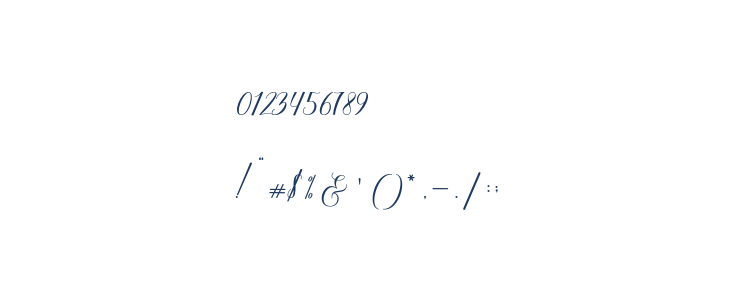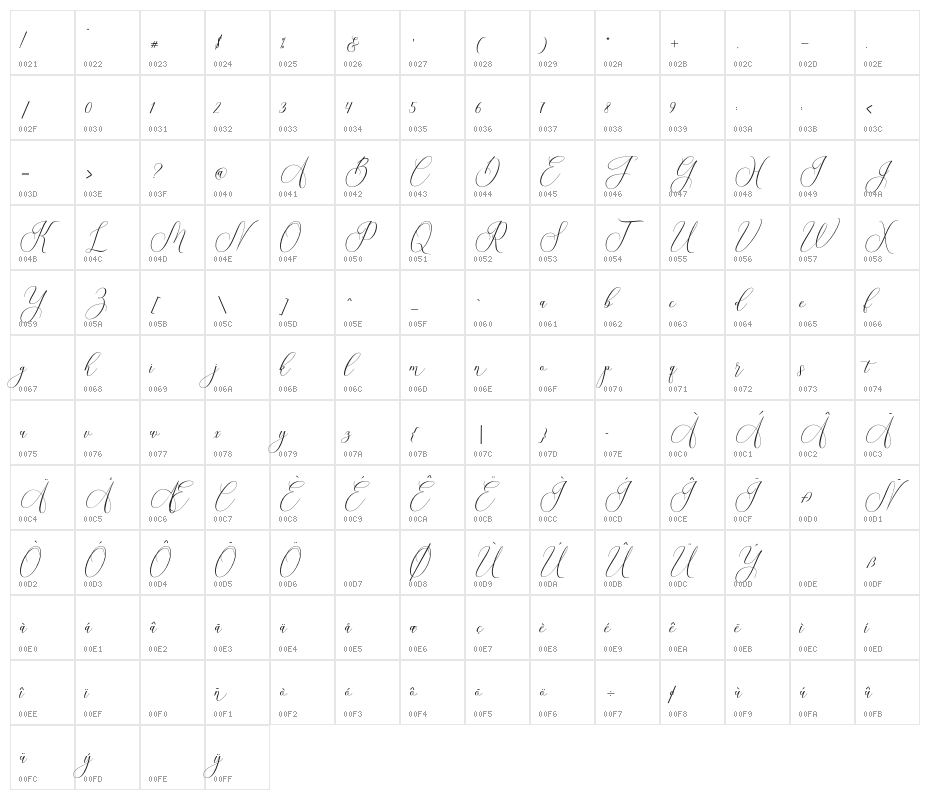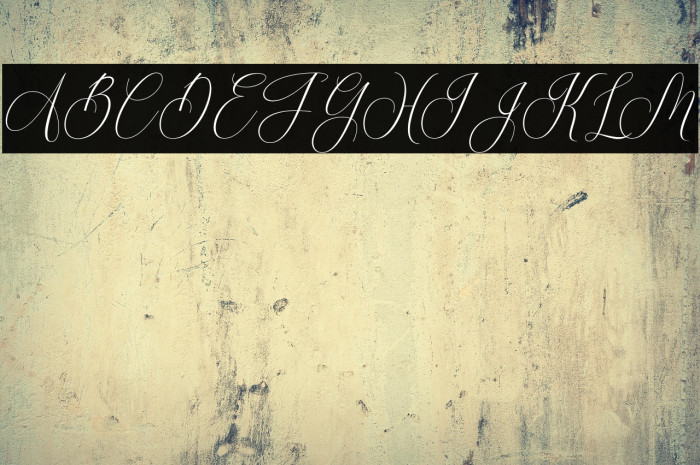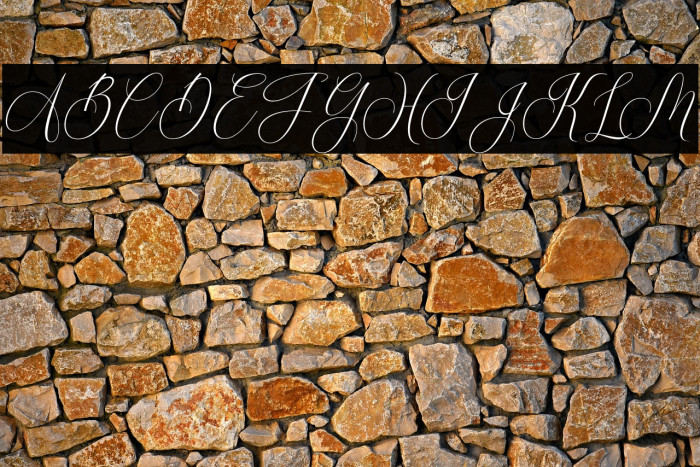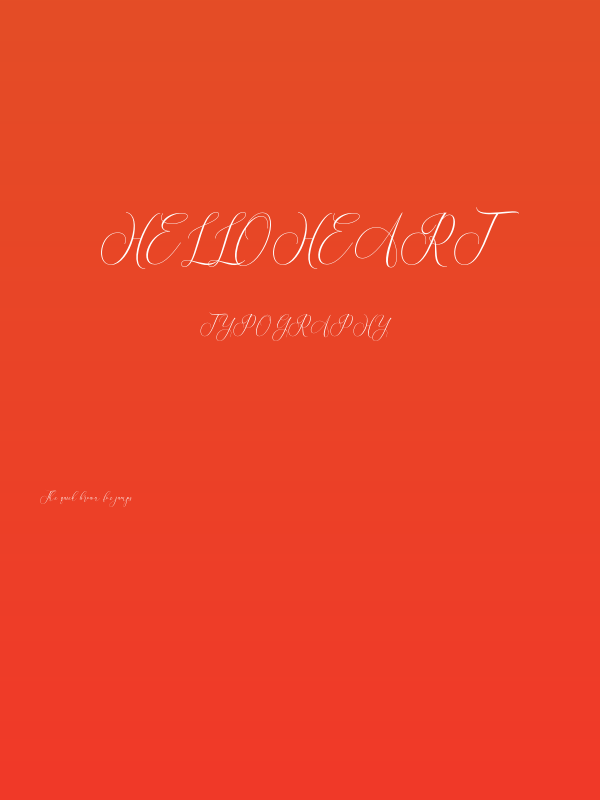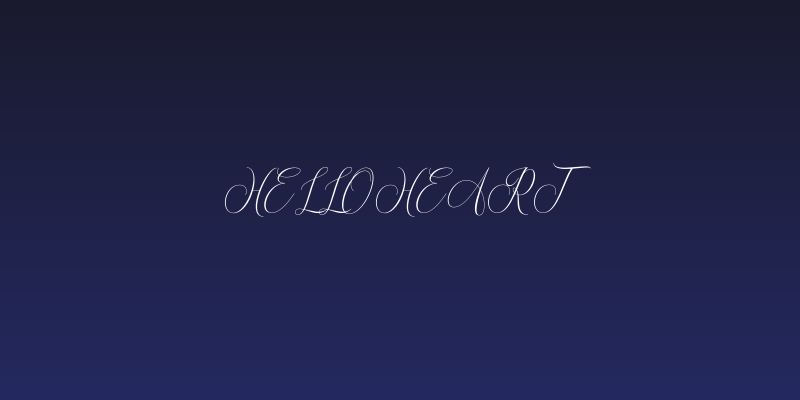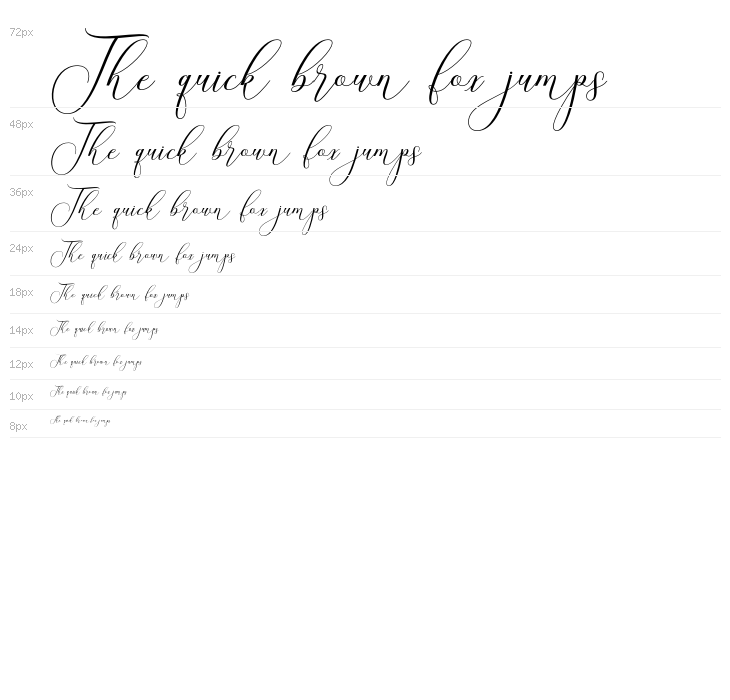
helloheart Font
helloheart Description
This elegant script font features flowing, interconnected letters that exude a sense of sophistication and grace. The uppercase letters are characterized by their sweeping curves and loops, while the lowercase letters maintain a consistent fluidity and rhythm. The numerals are styled to match the overall cursive aesthetic, with slight variations in stroke thickness that add to the font's charm. Special characters are thoughtfully designed to complement the script style, making this font versatile for various applications. Its delicate and refined appearance makes it ideal for formal invitations, branding, and decorative purposes.